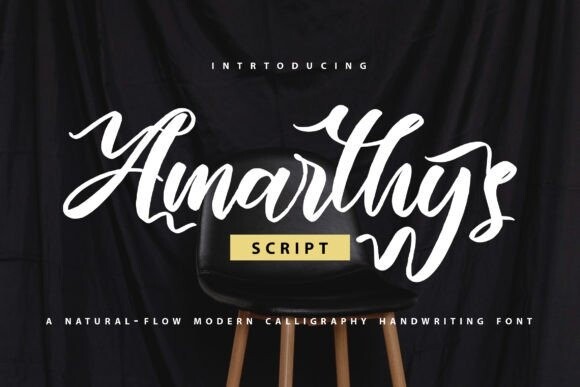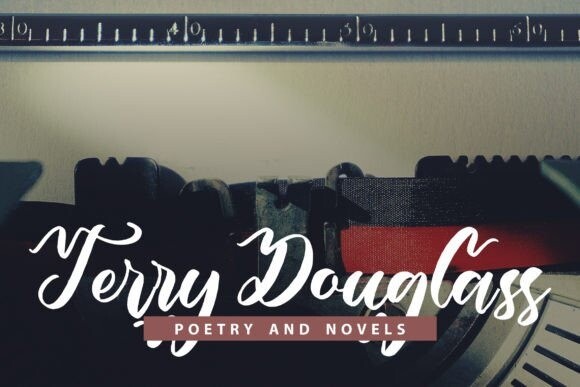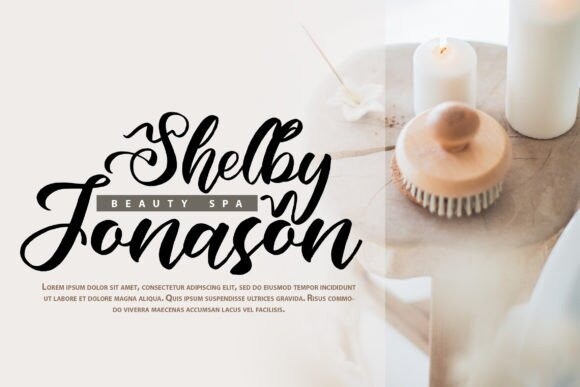
Amarthys Font
Amarthys – Modern handwritten font with a calligraphy style. It will look so beautiful on invitations like greeting cards, branding materials, business cards, quotes, posters, and more!